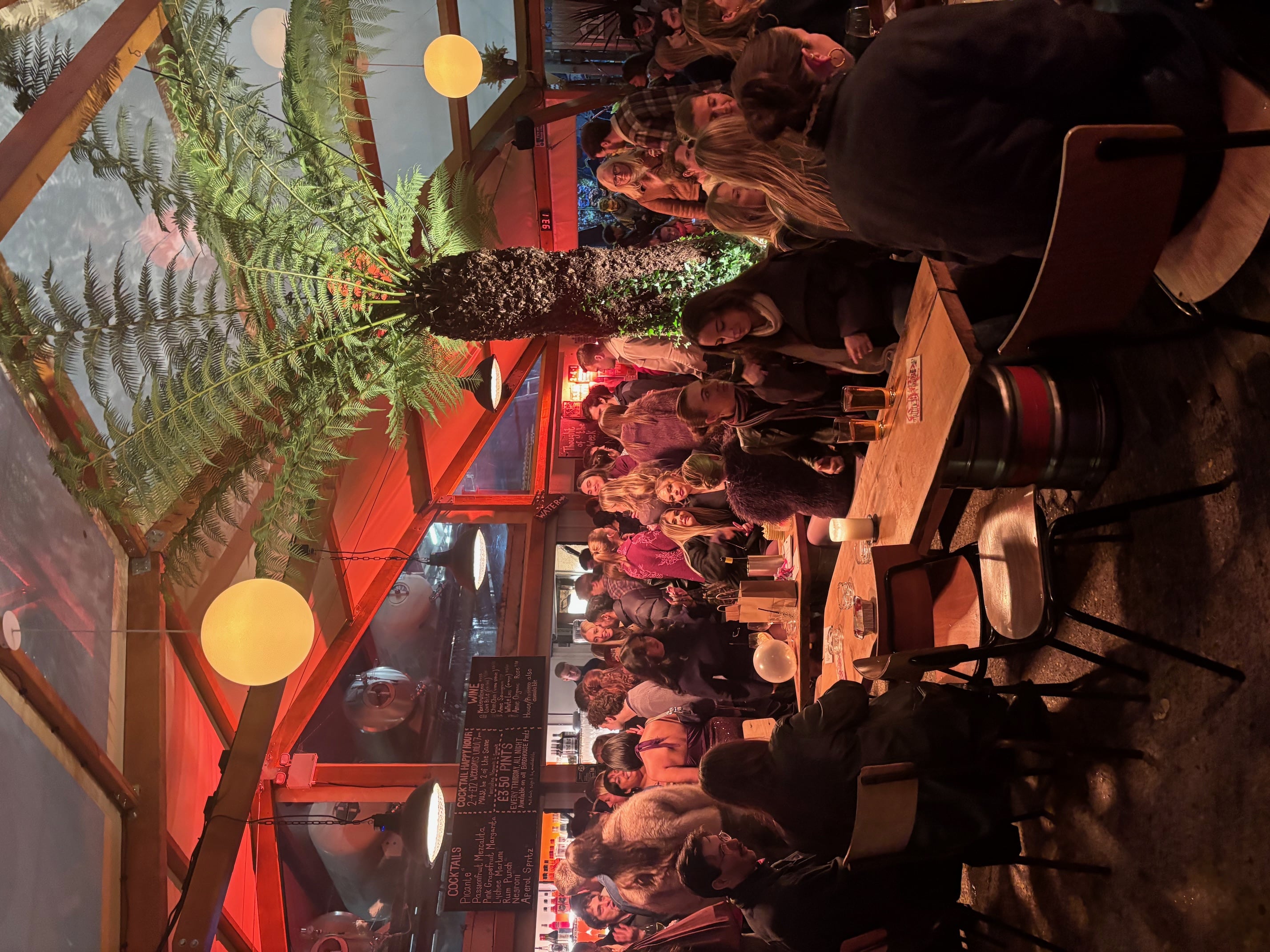
This font was inspired by the bustling atmosphere of Peckham arches. Throughout multiple visits, i observed what I could see, feel and hear within the space, from the constant movement of people to the sounds of music, voices and trains. The variety of independent shops also influenced my thinking. These observations helped me understand Peckham Arches as a place full of energy and contrast. This led me to the idea of creating each letter of my typeface as a different sensation, allowing the font to reflect the dynamic, lively and unpredictable character of the environment.